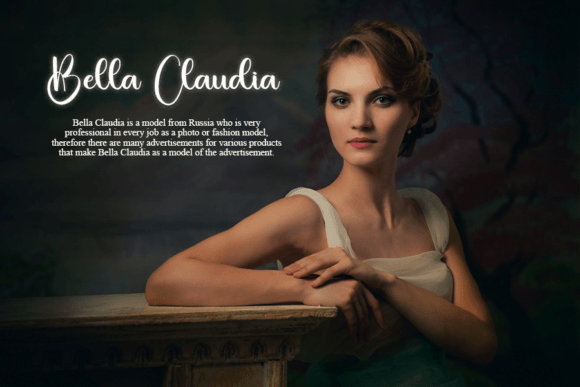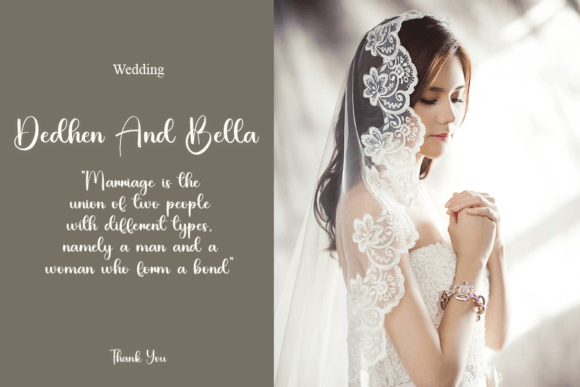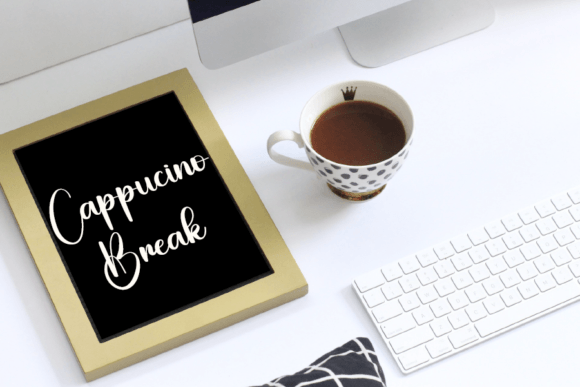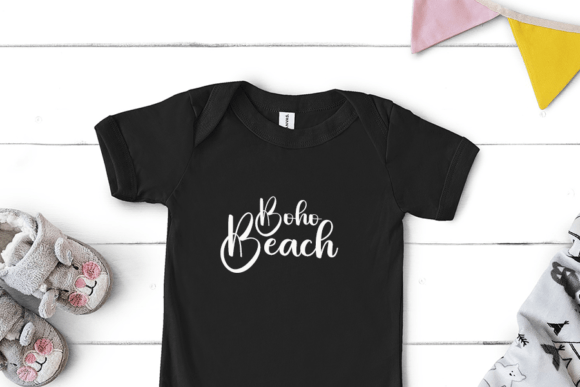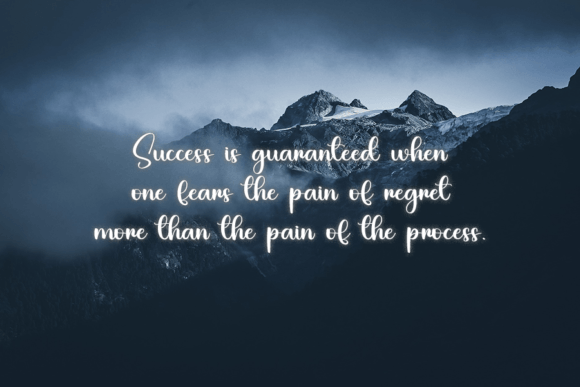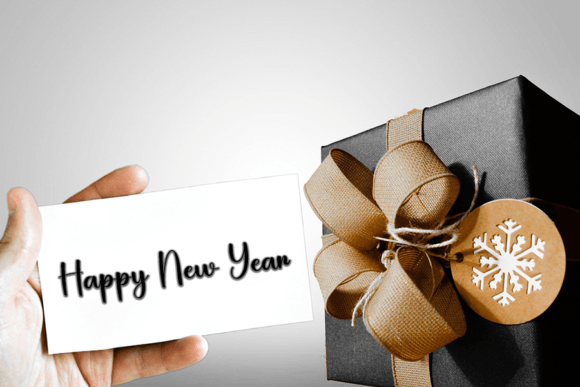
Introducing Boho Beach Font: The Ultimate Modern Handwritten Font for Designers and Crafters
Are you tired of using the same old fonts for your designs and crafts? Look no further! Boho Beach Font is here to revolutionize your creative projects with its cool and modern handwritten style. This versatile font is perfect for a wide range of applications, from digital design and presentations to crafting and making greeting cards.
What Makes Boho Beach Font So Special?
Boho Beach Font is a unique and stylish addition to any designer’s or crafter’s toolkit. Its modern handwritten style gives it a fresh and trendy feel that’s perfect for creating eye-catching projects. The font’s bohemian-inspired aesthetic makes it ideal for designs that require a laid-back, beachy vibe.
Endless Possibilities with Boho Beach Font
One of the best things about Boho Beach Font is its versatility. Whether you’re working on a digital project, such as a website or social media graphics, or creating handmade crafts like greeting cards or scrapbook pages, this font is sure to become your go-to choice. Its clear and readable design makes it perfect for body text, while its stylish flair makes it ideal for headings and titles.
Boho Beach Font is a dream come true for designers and crafters alike. Its modern style and bohemian flair make it perfect for creating unique and eye-catching projects that stand out from the crowd. Whether you’re a professional designer or a hobbyist crafter, this font is sure to inspire your creativity and take your projects to the next level.
Use Boho Beach Font for:
- Digital design projects, such as websites, social media graphics, and email newsletters
- Handmade crafts, like greeting cards, scrapbook pages, and DIY decorations
- Presentations, reports, and other business documents
- Signs, banners, and other promotional materials
Why Choose Boho Beach Font?
So, why should you choose Boho Beach Font for your next project? Here are just a few reasons:
- Unique style: Boho Beach Font has a one-of-a-kind, modern handwritten style that’s sure to turn heads.
- Versatility: This font is perfect for a wide range of projects, from digital design to handmade crafts.
- Easy to read: Despite its stylish flair, Boho Beach Font is clear and easy to read, making it perfect for body text.
- Inspirational: This font is sure to inspire your creativity and take your projects to the next level.
Get Ready to Fall in Love with Boho Beach Font
In conclusion, Boho Beach Font is a must-have for designers and crafters who want to add a touch of modern style and bohemian flair to their projects. With its unique handwritten style, versatility, and ease of use, this font is sure to become your go-to choice for all your creative endeavors. So don’t miss out on the opportunity to take your designs and crafts to the next level with Boho Beach Font.